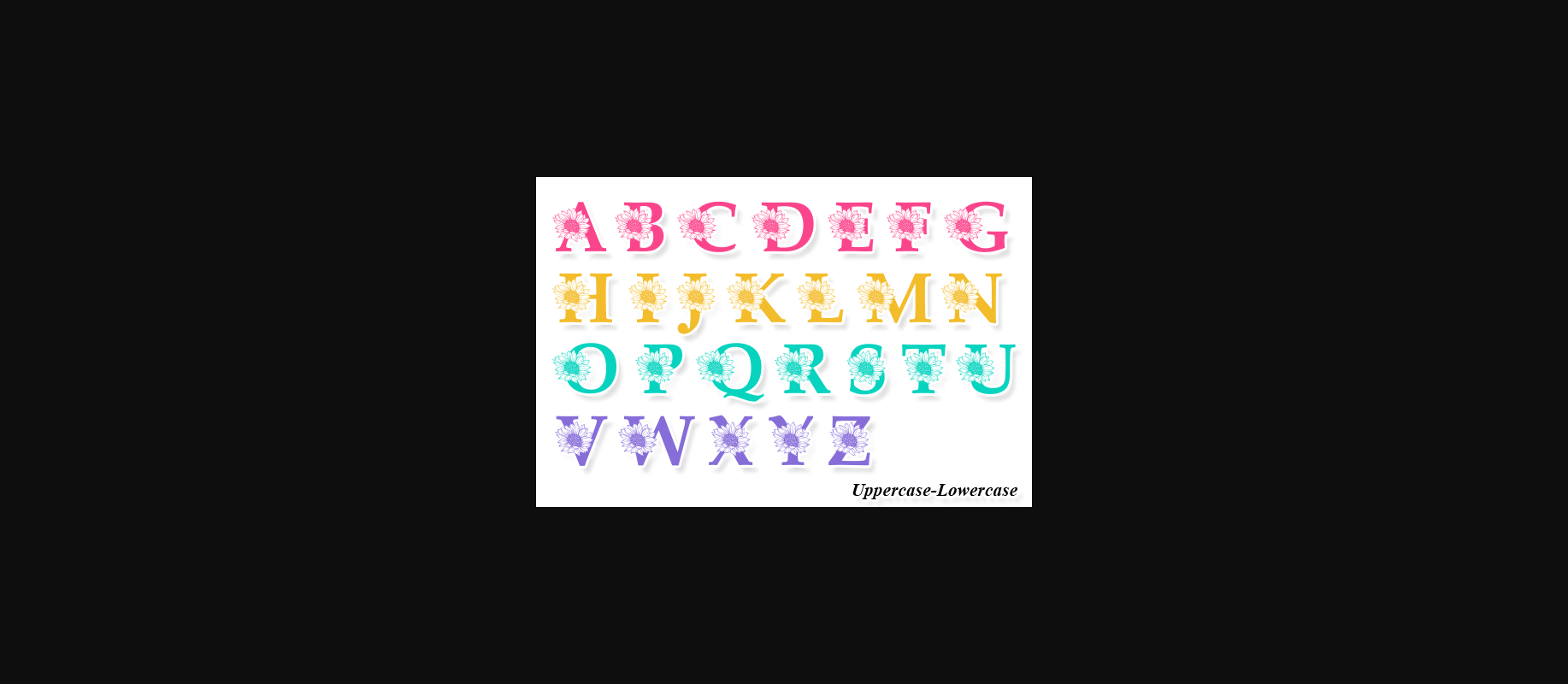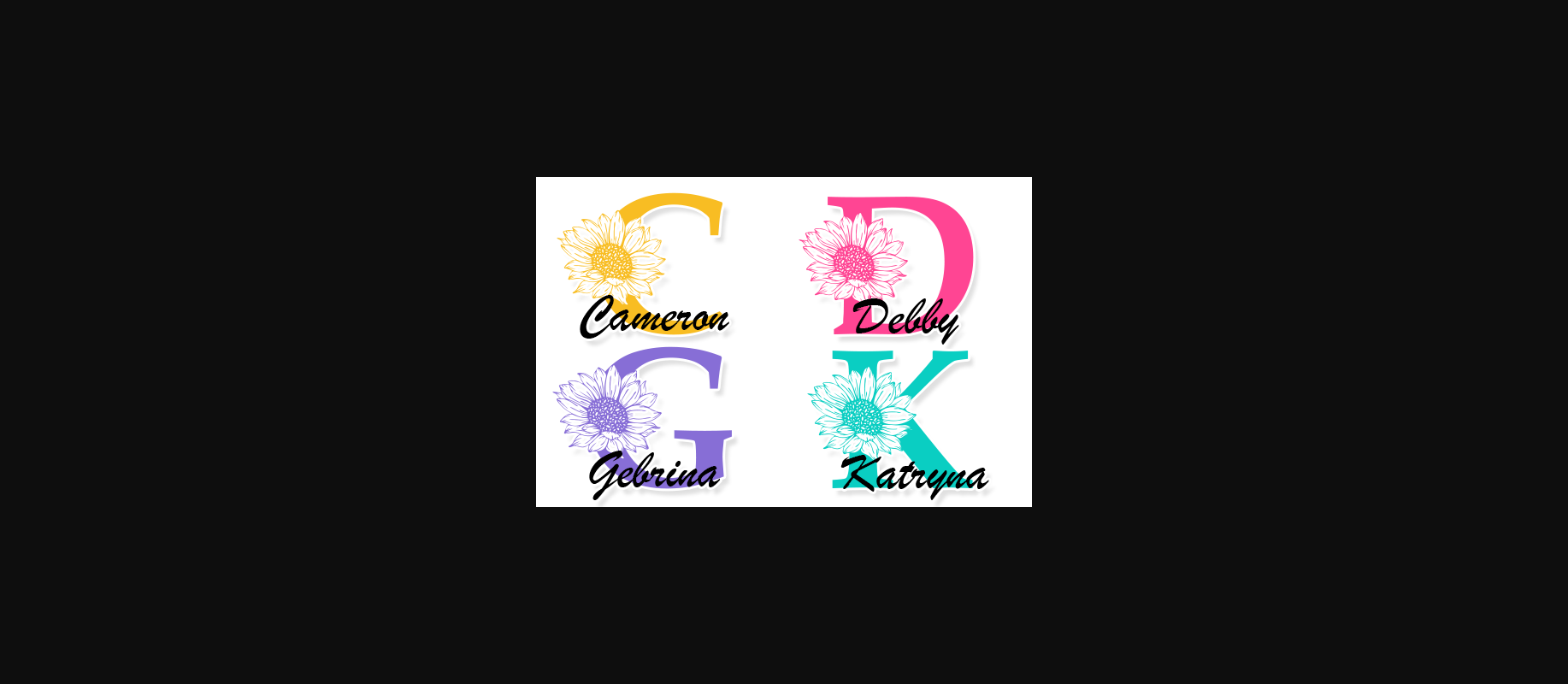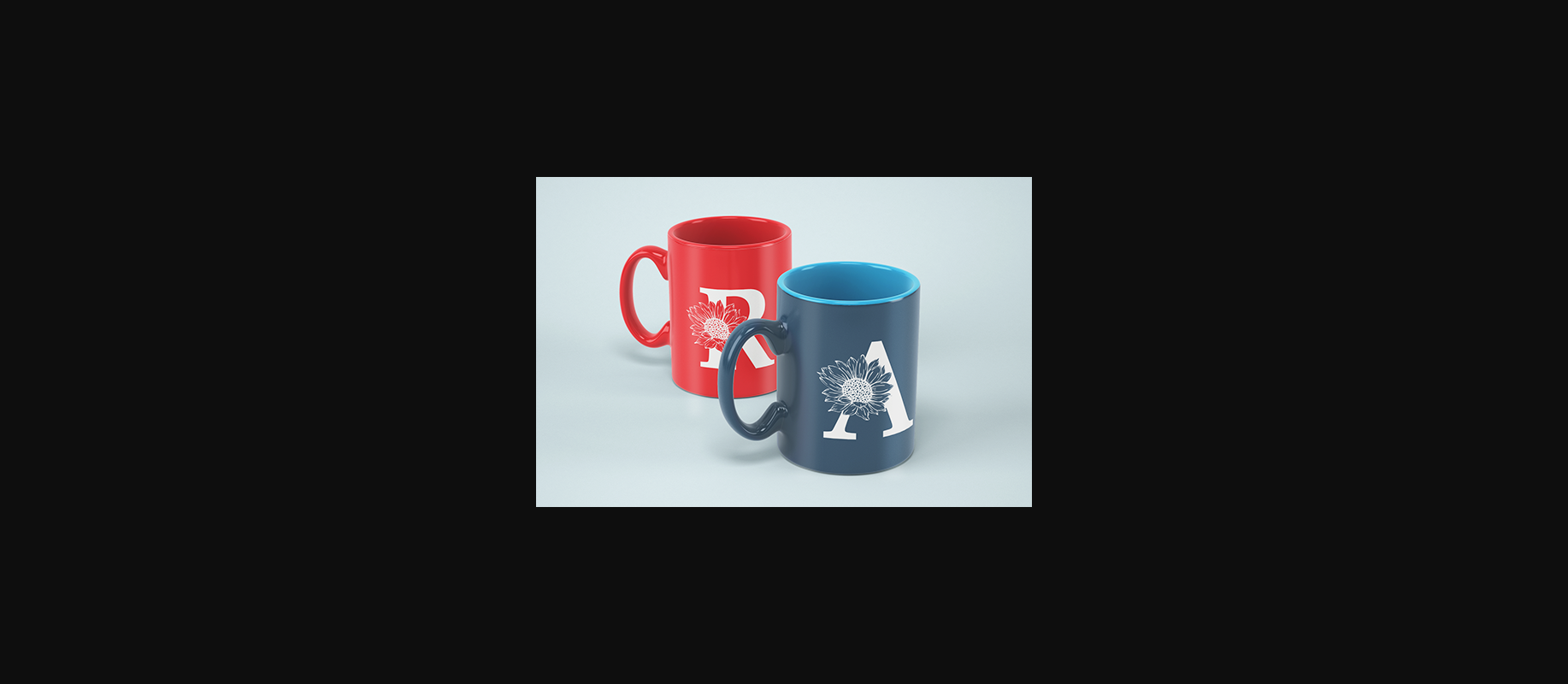
About Cameron Monogram Font
Cameron Monogram is a cool and original-looking decorative font. It is suitable for logotypes, headlines, corporate identity, brand identity, apparel industry, posters, music, movies, games, magazines, books, comics, cartoons, YouTube, Instagram, websites, or any of your creative design projects.